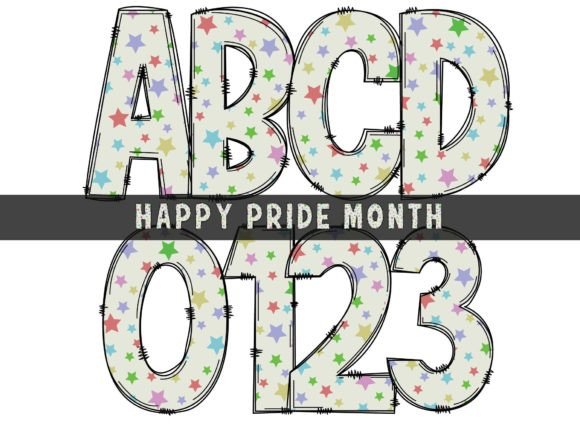
Celebrate Creativity with a Playful Bubble Rainbow Typeface
Every June, the world lights up with color, energy, and an unmistakable sense of celebration. Pride Month is more than just a calendar event; it is a global movement of visibility, love, and acceptance. For designers, creators, and business owners, this time of year offers a unique opportunity to align your visual identity with these powerful themes. But how do you capture that infectious joy and spirit of inclusivity in your designs without looking generic? The answer often lies in the details, specifically in the typography you choose. One particular font style is making waves this season: a bubbly, rainbow-inspired typeface that feels like a party on the page. It’s not just a font; it’s a visual embodiment of the celebration itself.
Why This Font Style Resonates with Modern Audiences
Typography carries emotional weight. A sharp, geometric sans-serif might communicate efficiency and modernity, while a flowing script can evoke elegance and tradition. The "bubble rainbow" aesthetic, however, speaks a different language entirely. It communicates fun, approachability, and creativity. This style of typeface is characterized by its rounded, soft letterforms, often with a playful, slightly inflated appearance. The color aspect—when used in digital or print applications—can involve gradient fills or a multi-color palette that mimics the vibrant stripes of the Pride flag. This combination creates an immediate, positive emotional response. It feels welcoming and youthful, making it an excellent choice for brands and projects that want to connect with audiences on a human, joyful level.
For a small business owner, this could be the key to standing out in a crowded market. Imagine a local bakery using this font for its social media posts during June. The bubbly letters paired with images of rainbow-frosted cupcakes instantly create a cohesive, festive brand moment that feels authentic and engaging. For a content creator, using this style for video thumbnails or blog headers can signal to your audience that your content is lively, inclusive, and worth clicking on. It’s a subtle but powerful way to communicate your values before a single word is read.
Practical Applications: From Brand Identity to Digital Products
The true value of a unique font is unlocked when you apply it thoughtfully across your projects. This playful typeface isn't just for Pride-themed announcements; its versatility can enhance a wide range of creative work. Its primary strength lies in its ability to grab attention and set a specific tone.
Consider its use in logo design. For a children's party planning service, a LGBTQ+ community center, or a creative workshop studio, a bubble-style font can form the foundation of a friendly, memorable brand mark. It instantly tells potential customers what kind of experience they can expect. In packaging design, it can make a product pop on the shelf. Think of a colorful candy brand, a line of fun cosmetics, or even a series of artisanal candles—this font style adds a layer of delight and perceived quality.
Digital spaces are where this font truly shines. For social media graphics, it's a game-changer. Instagram Stories, Facebook event covers, and Pinterest pins using this typography stop the scroll. The rounded, bubbly shapes are highly readable even at smaller sizes on mobile screens, which is a critical consideration for modern web design. It can be used for website banners, call-to-action buttons, or featured section headings to inject personality into a user's journey. Bloggers can use it for article titles to make their content more inviting, while e-commerce sites can apply it to sale announcements or new arrival labels to create excitement.
Don't overlook its power in print and merchandise. This font is perfect for creating eye-catching posters for community events, Pride marches, or local festivals. It translates beautifully onto merchandise like t-shirts, tote bags, stickers, and mugs, where a bold, graphic statement is needed. For invitations—whether for a wedding, a birthday party, or a corporate diversity event—this typeface sets a celebratory and inclusive tone right from the envelope.
Pairing and Professionalism: Making the Font Work for You
While a display font like this is fantastic for headlines and short bursts of text, effective design requires balance. One of the most common questions is how to pair it with other typefaces for a professional result. The key is contrast. Because this font is highly decorative and attention-grabbing, it should be paired with a simple, clean companion font for body text.
A classic sans-serif font like Helvetica, Arial, or a modern geometric sans-serif is a perfect match. The simplicity of the sans-serif provides a visual rest for the eyes, ensuring that your longer paragraphs, product descriptions, or informational text remain highly readable. This pairing creates a clear hierarchy: the bubble font draws the eye and establishes the mood, while the sans-serif delivers the detailed information without strain.
Avoid pairing it with another complex script font or an ornate serif font. The two decorative styles will compete for attention, creating visual chaos and undermining the professional presentation of your work. Always test your font pairings in context. Create a mock-up of your social media post, your website header, or your flyer layout. View it at different sizes and on different devices. How does it look on a smartphone screen? Is the body text still legible when printed? This testing phase is crucial for maintaining both visual consistency and functional readability.